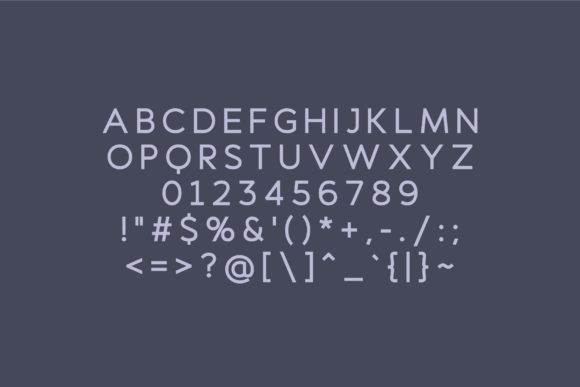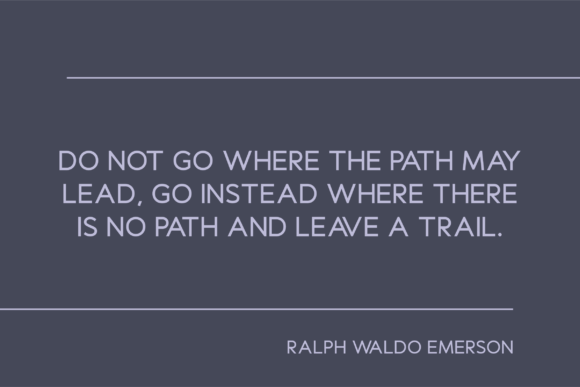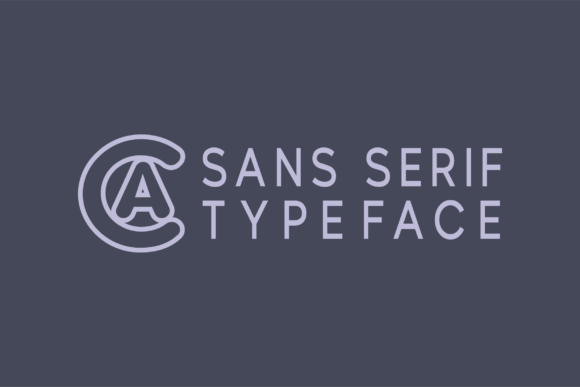
Introduction to Melanthios Font
Have you ever found yourself staring at a blank page, struggling to bring your creative vision to life? The cursor blinks, taunting you with its silence, until suddenly, the perfect font appears, breathing life into your design. This is precisely the moment when the Melanthios Font takes center stage, transforming your blank slate into a masterpiece.
As a valuable resource for designers, the Melanthios Font is more than just a typeface – it’s a key to unlocking the full potential of your creative project. With its luminous, sans serif design, it effortlessly elevates the sophistication of your work, whether it’s a logo, a wedding card, or a magazine spread. What’s more, this versatile font is available for free download, making it an accessible design resource for artists and designers worldwide.
Key Features of Melanthios Font
- High-quality design resource ideal for creative projects, with a unique and elegant aesthetic.
Honest Review: Melanthios Font
As a designer, I’m always on the lookout for high-quality design resources to elevate my creative projects. Recently, I stumbled upon the Melanthios Font, and I’m excited to share my honest review.
- ✨ High-quality design: The Melanthios Font boasts a sophisticated and elegant design that’s perfect for a variety of creative projects.
- ⚠️ Limited character set: The Melanthios Font has a limited character set, which may not be ideal for designers who need to use a wide range of characters in their projects.
- ⚠️ Not suitable for small text: Due to its elegant design, the Melanthios Font may not be the best choice for small text, as it can become difficult to read.
Overall, I’m impressed with the Melanthios Font’s design quality and versatility. While it may have some limitations, it’s still a valuable resource for designers who want to add a touch of elegance to their creative projects.
Tips for Getting the Most Out of Melanthios Font
To get the most out of the Melanthios Font, experiment with different font sizes, styles, and combinations to achieve a unique look. You can also pair it with other high-quality fonts to create a visually appealing design.
The Melanthios Font is ideal for a variety of creative projects, including: logos, graphics, social media posts, posters, flyers, presentations, and documents. Its elegant and unique design makes it perfect for any project that requires a touch of sophistication.
Q: Can I customize the Melanthios Font for my specific design needs?
Yes, the Melanthios Font is highly customizable and can be adjusted to suit your specific design needs. You can use font editors or design software to modify the font’s appearance, including its size, color, and style. The font’s OpenType format also allows for advanced typographic features, such as ligatures and kerning, which can be customized to create unique and creative effects.